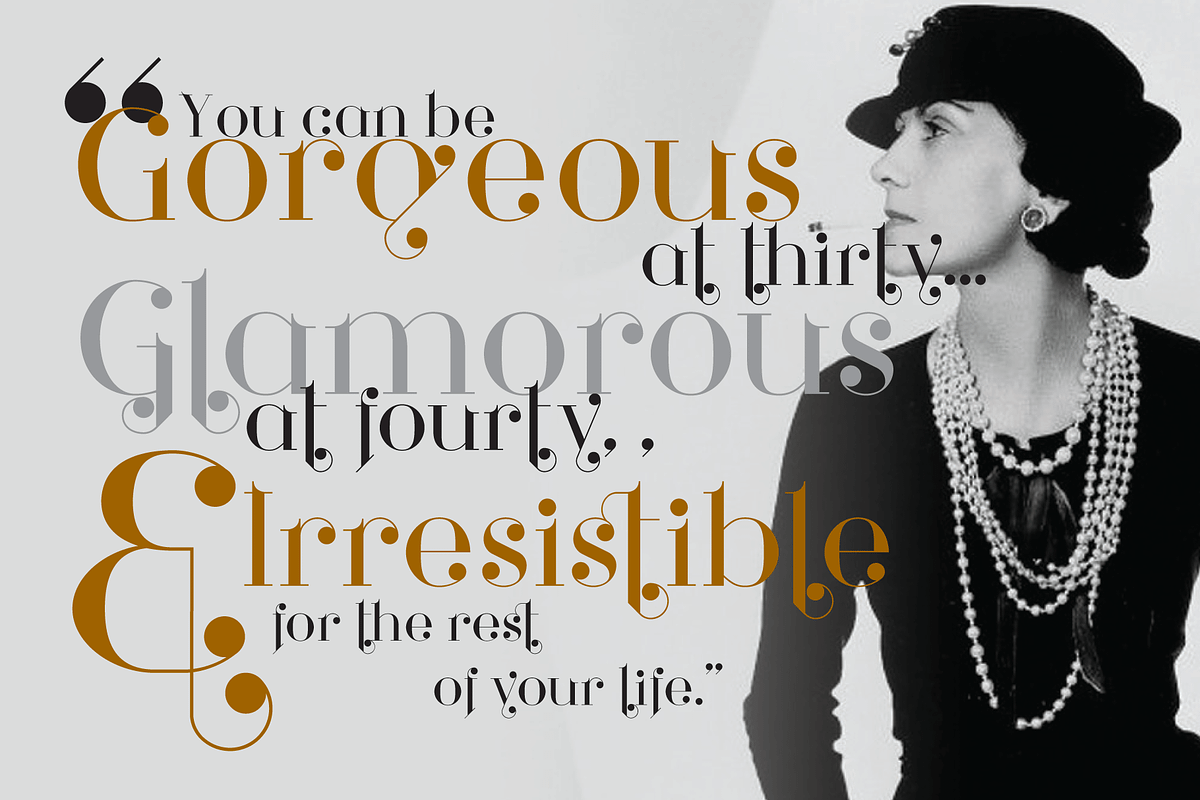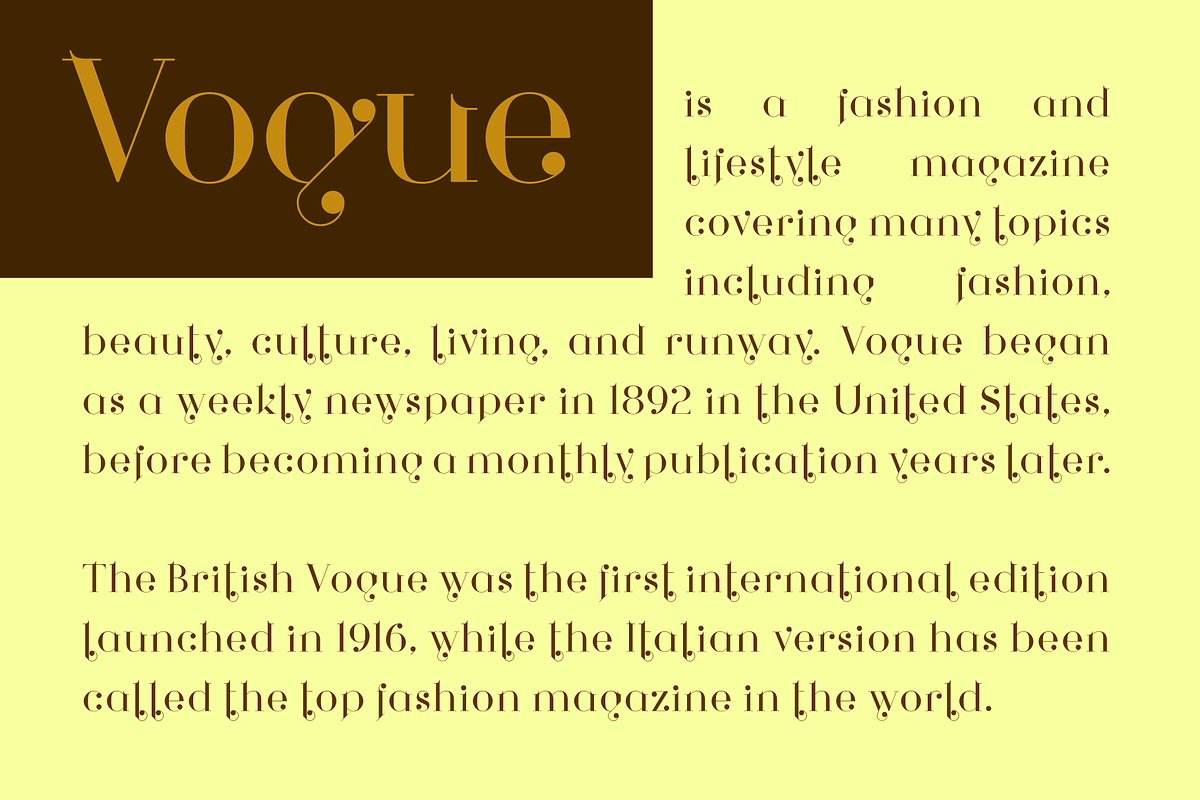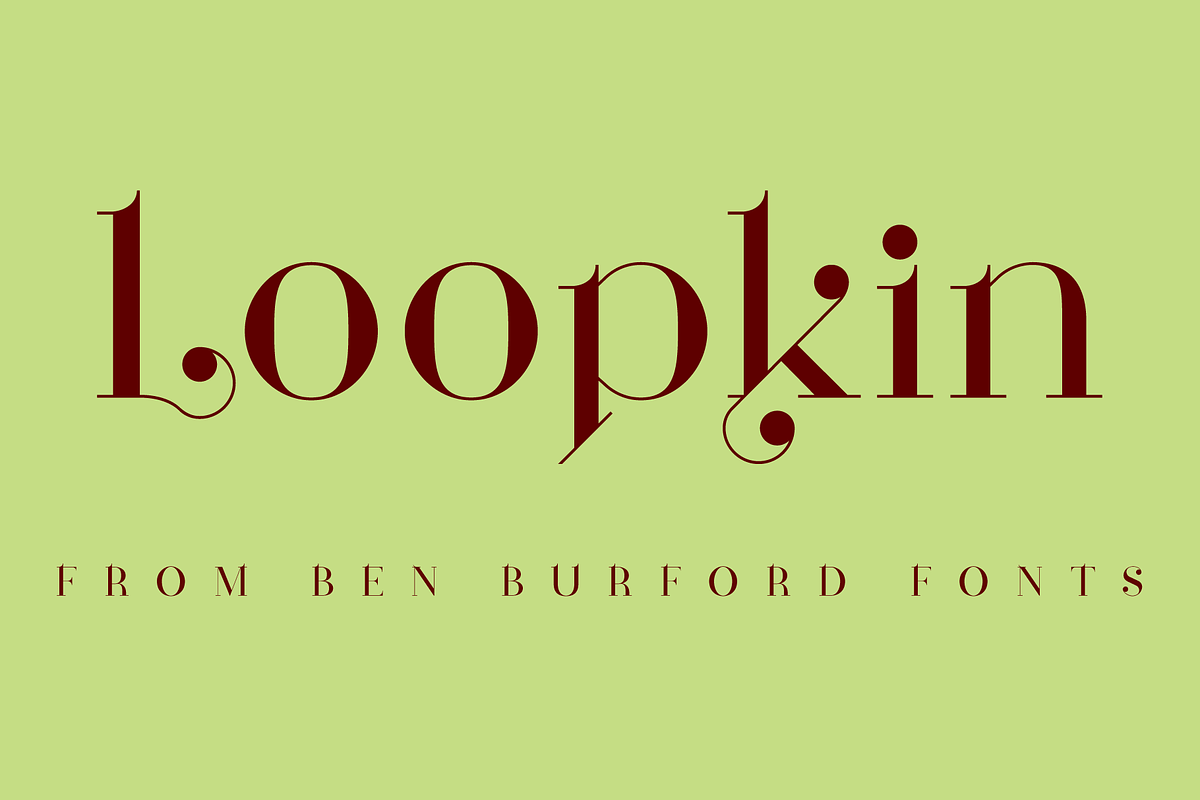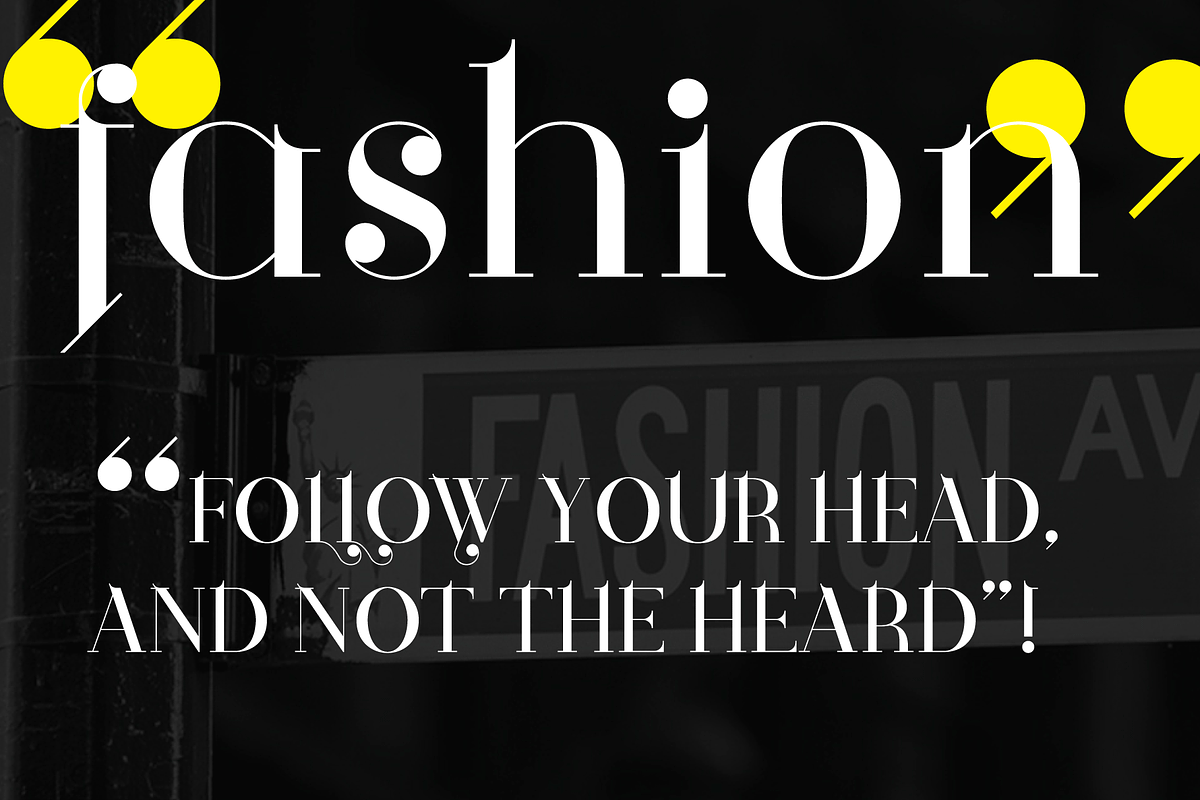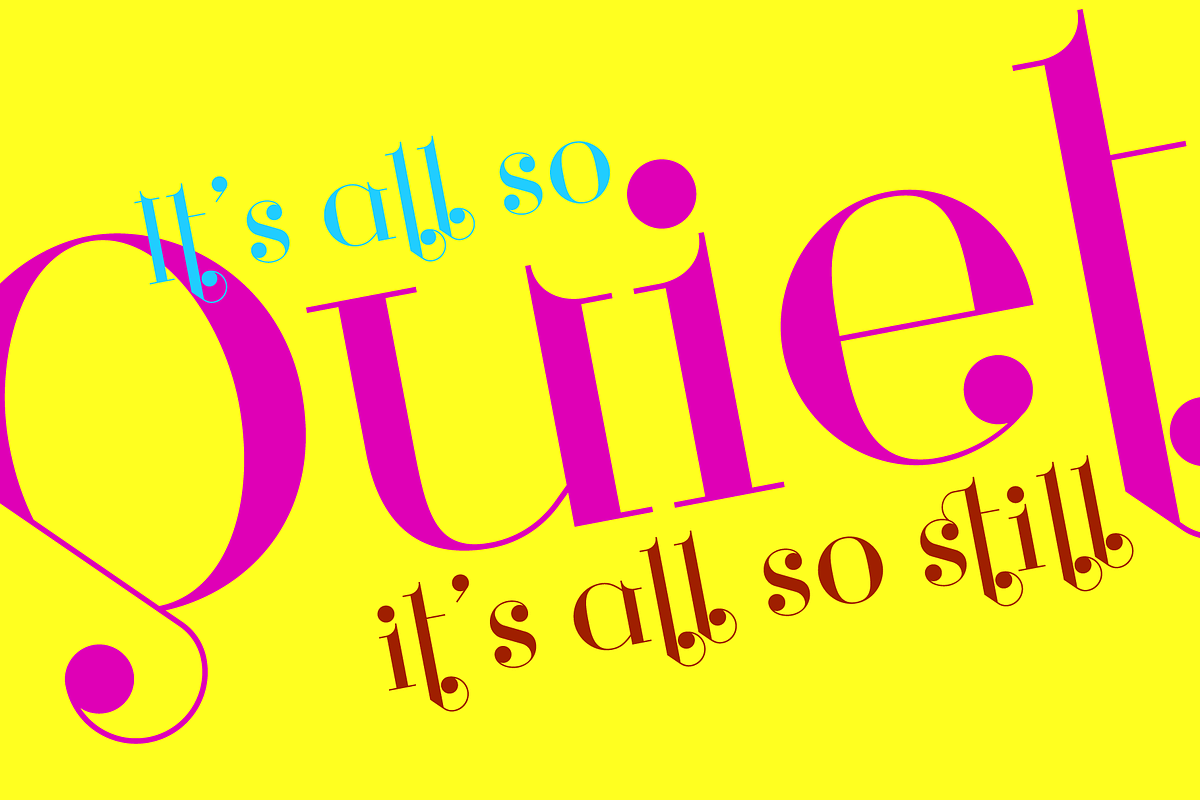
Loopkin
Loopkin. A new display font from Ben Burford Fonts.
A stylistic take on the classic modern serif fonts that have been a staple in high fashion publications for decades,
A New Take on a Classic!!
The opentype font comes with a full set of characters with also ligatures and alternative characters using the stylistic sets
Loopkin by Ben Burford Fonts fits naturally into Branding, posters, packaging, typography.